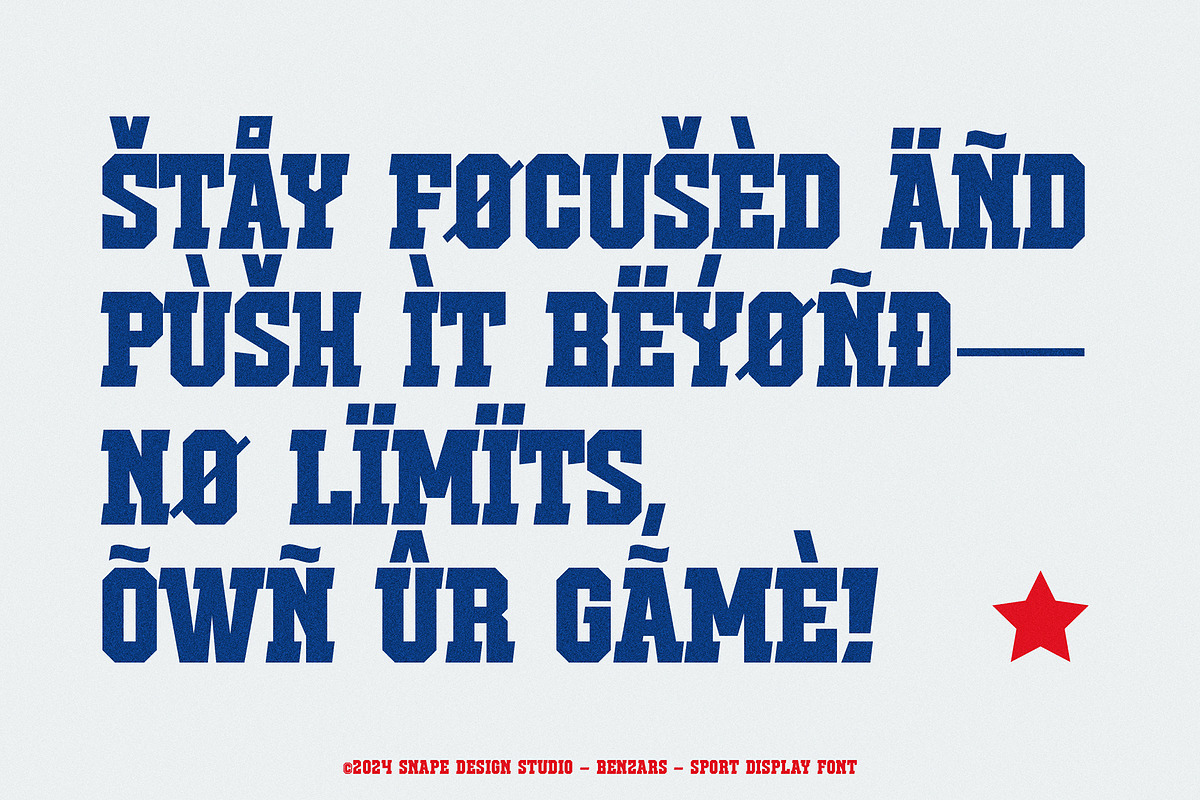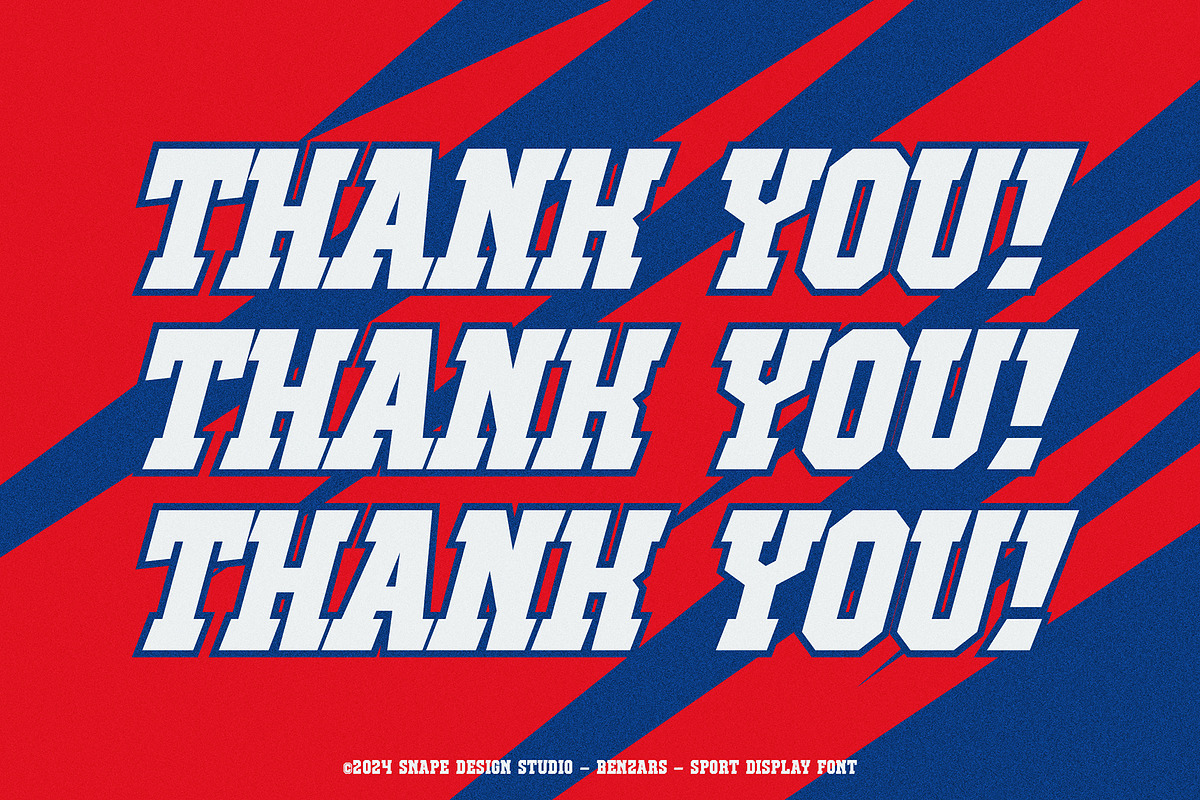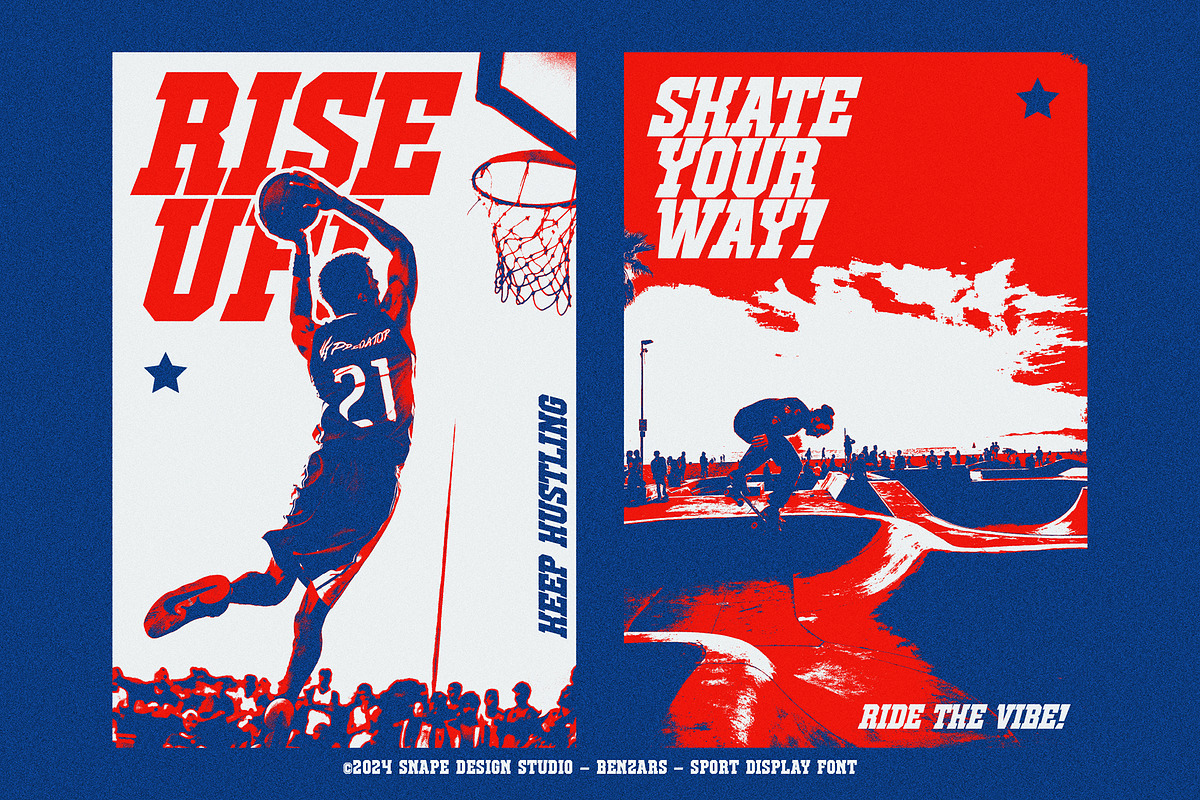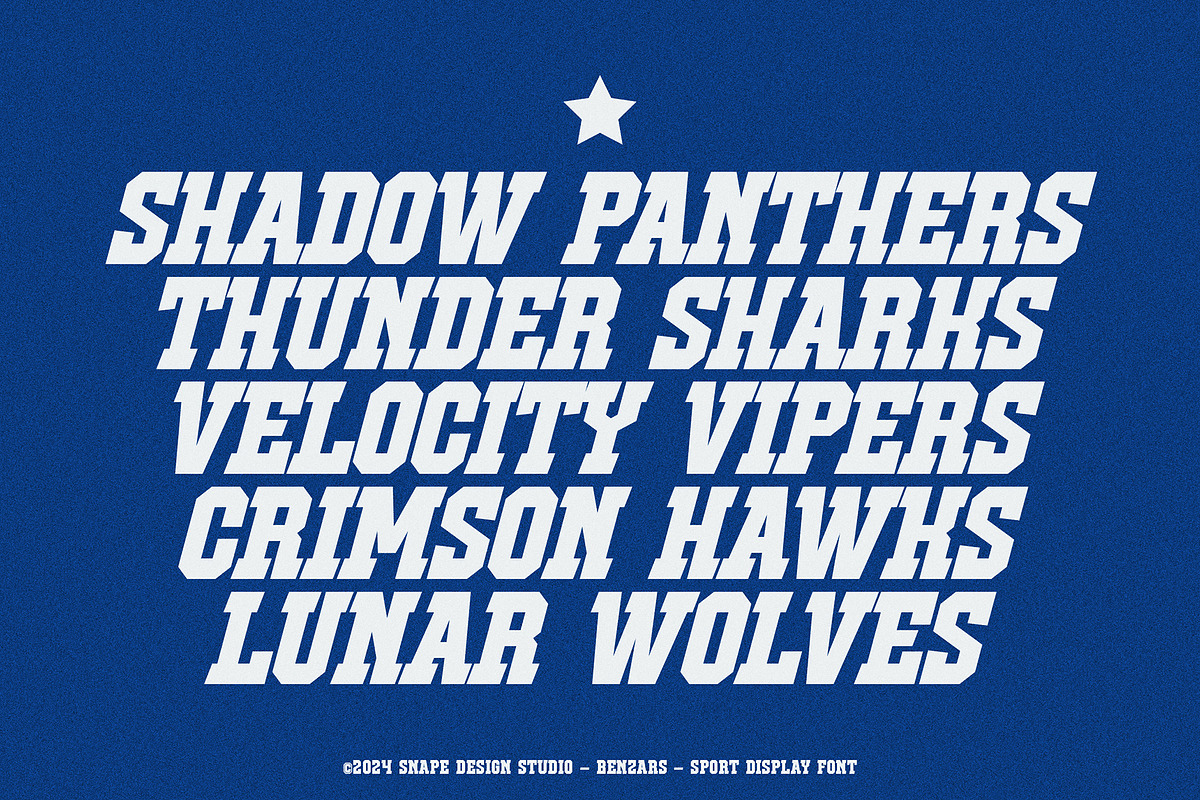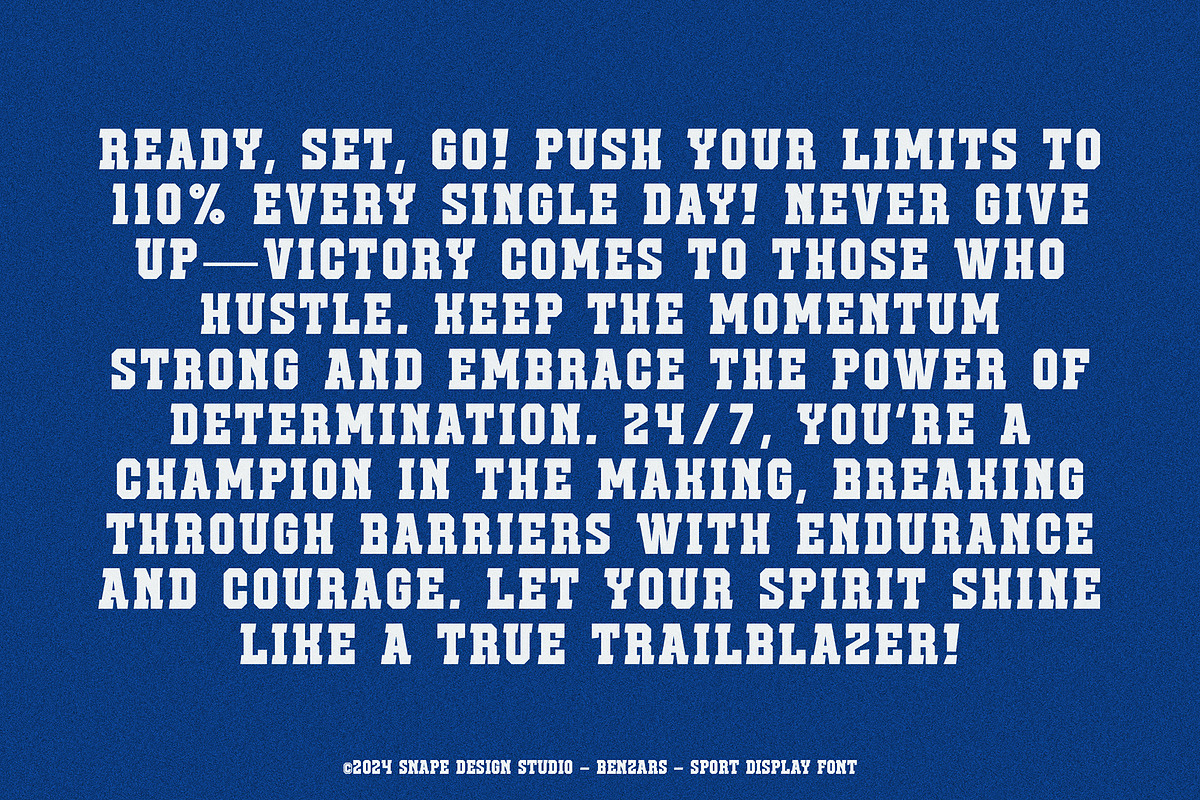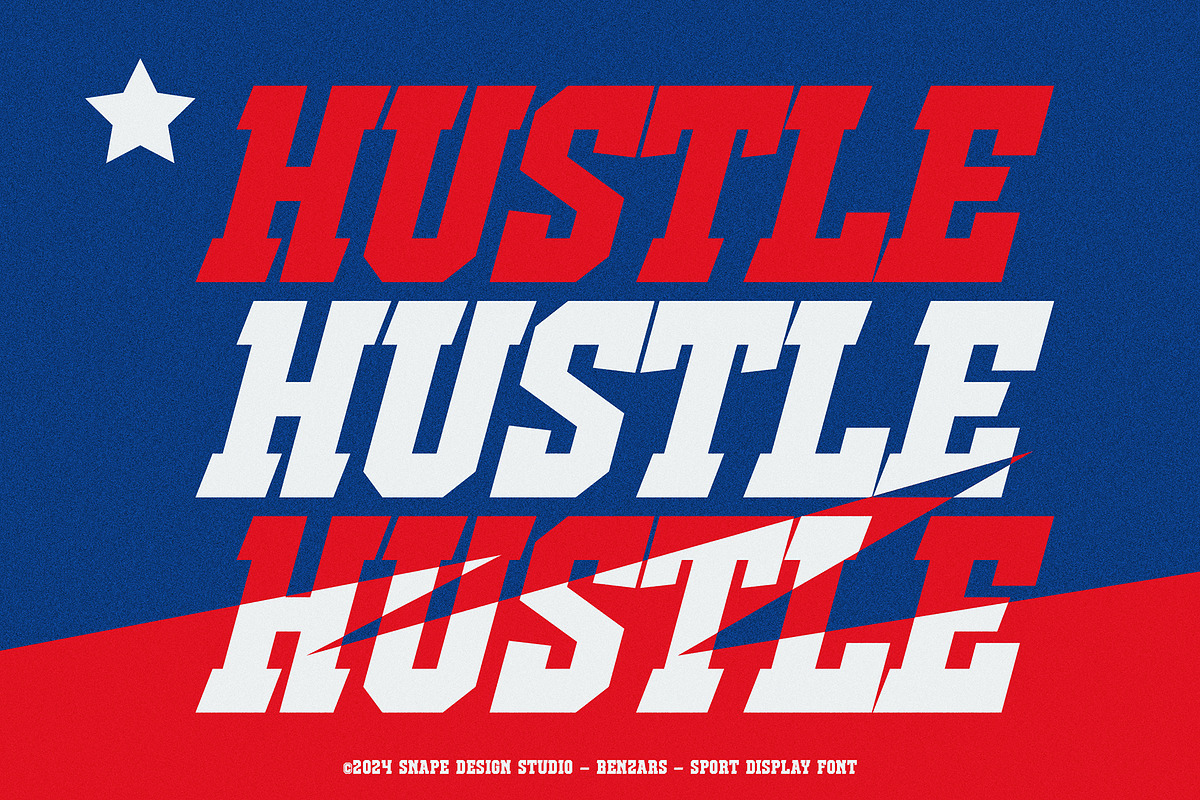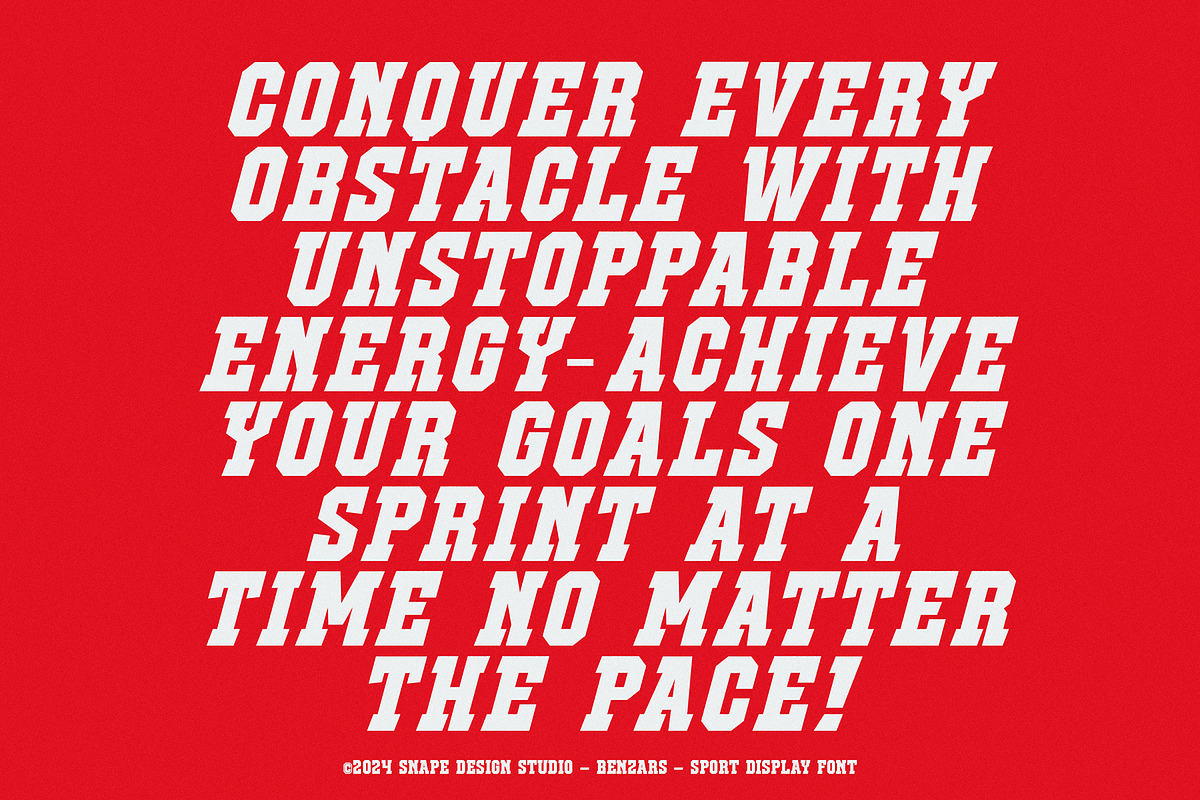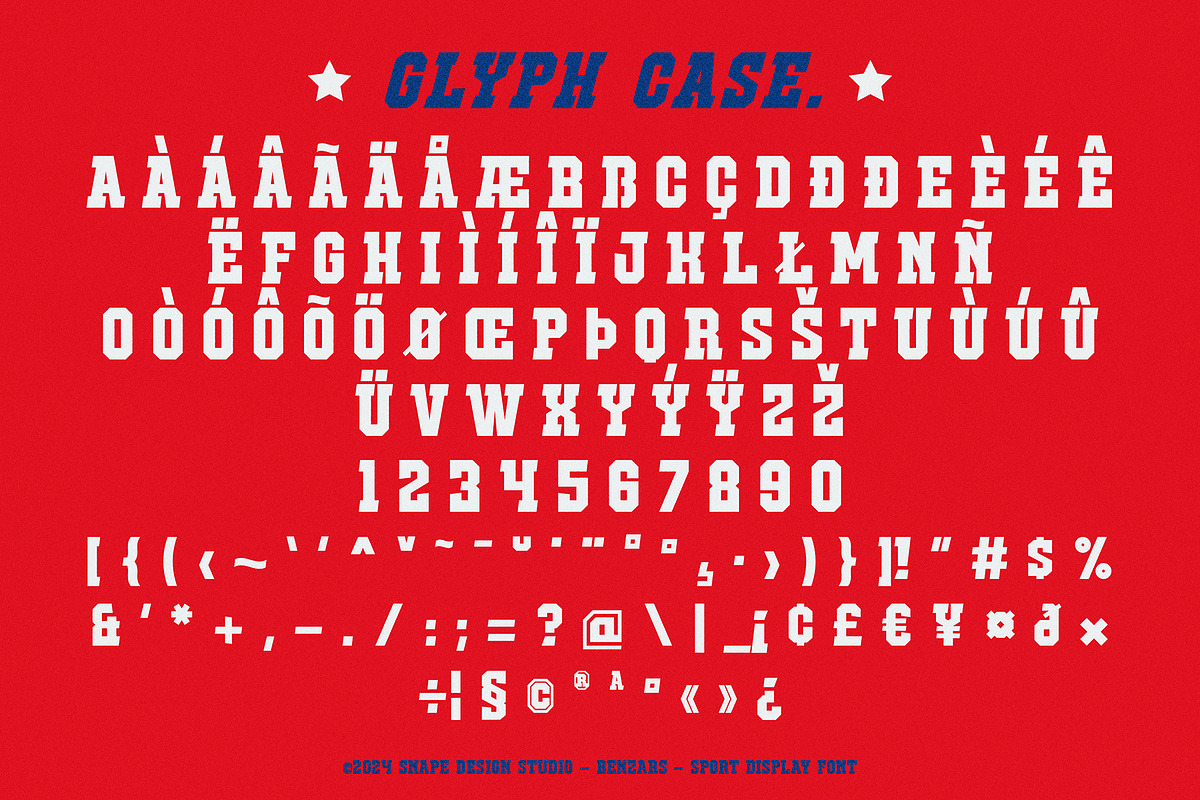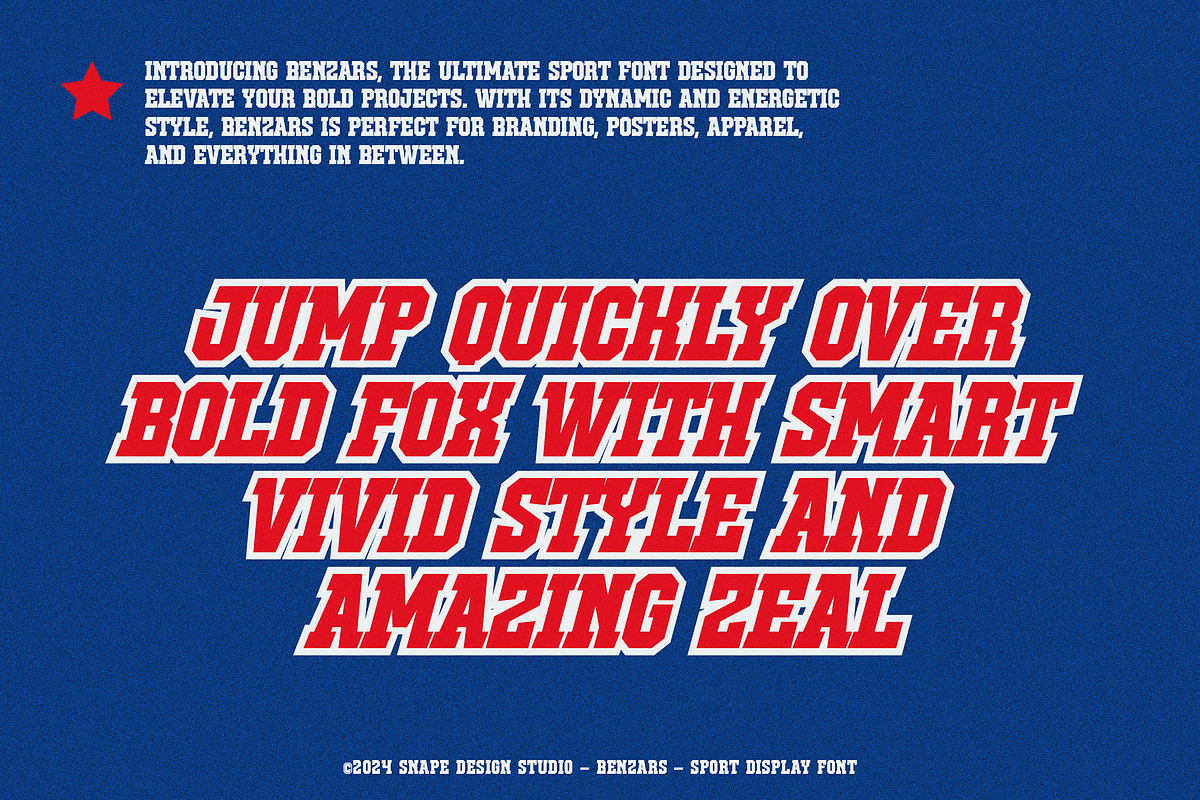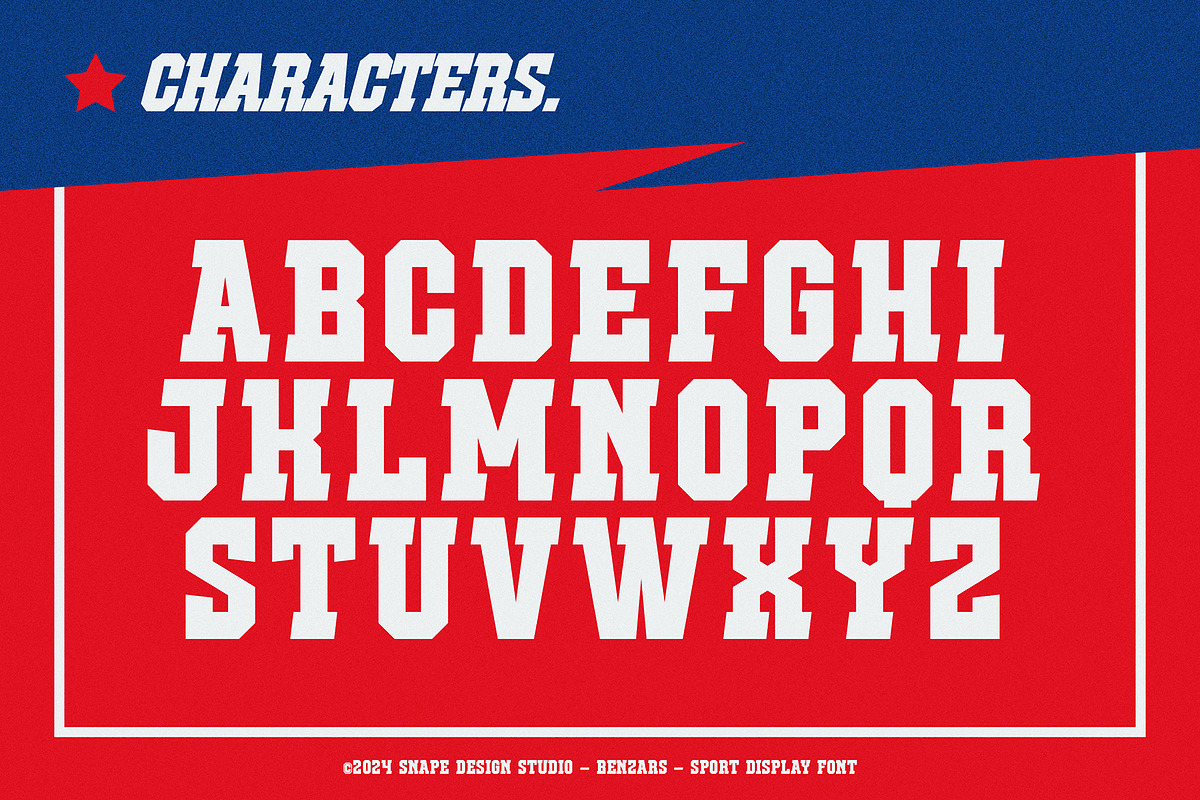
Benzars - Sport Display Font
Introducing Benzars, the ultimate sport font designed to elevate your bold projects. With its dynamic and energetic style, Benzars is perfect for branding, posters, apparel, and everything in between.